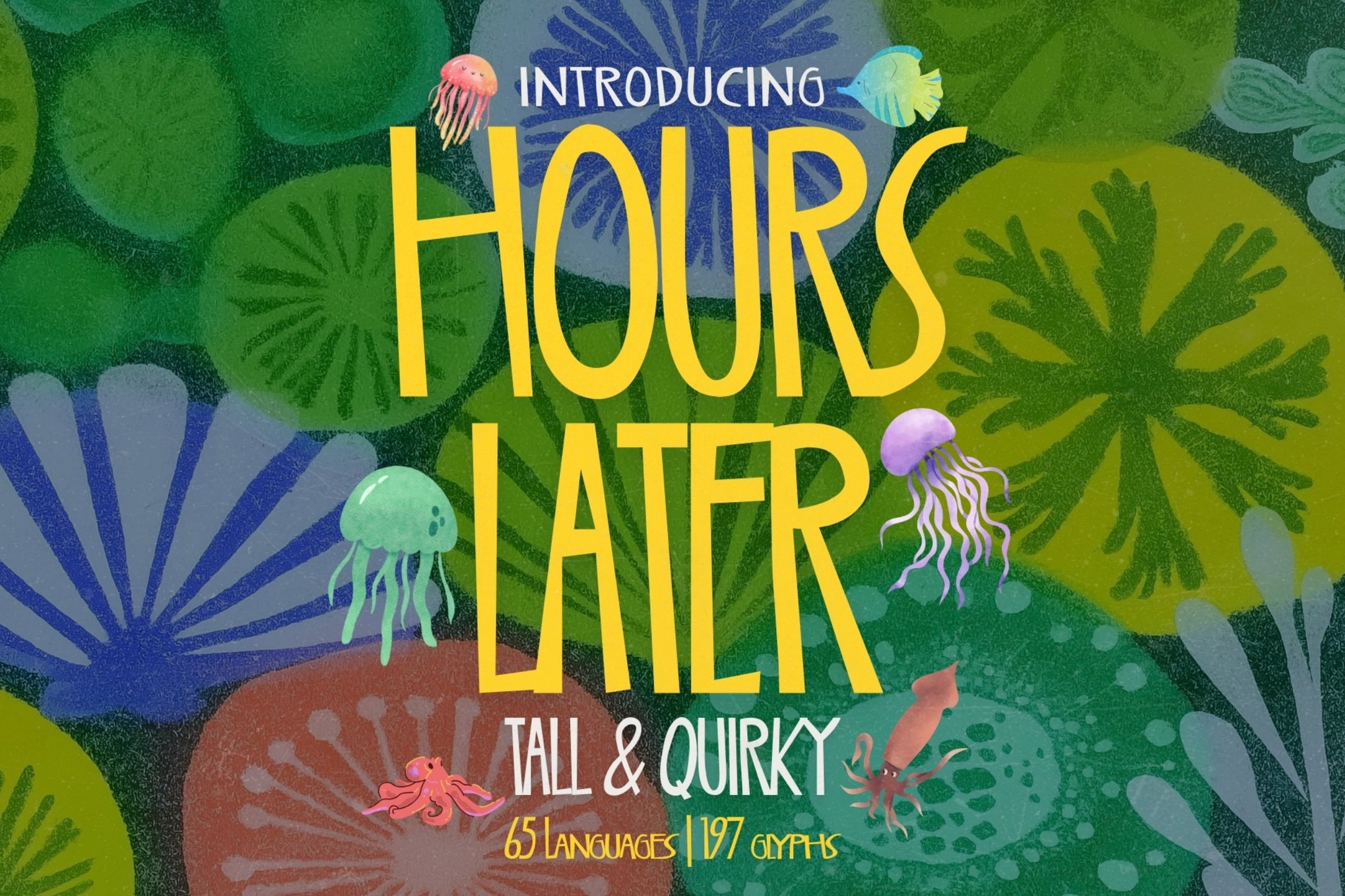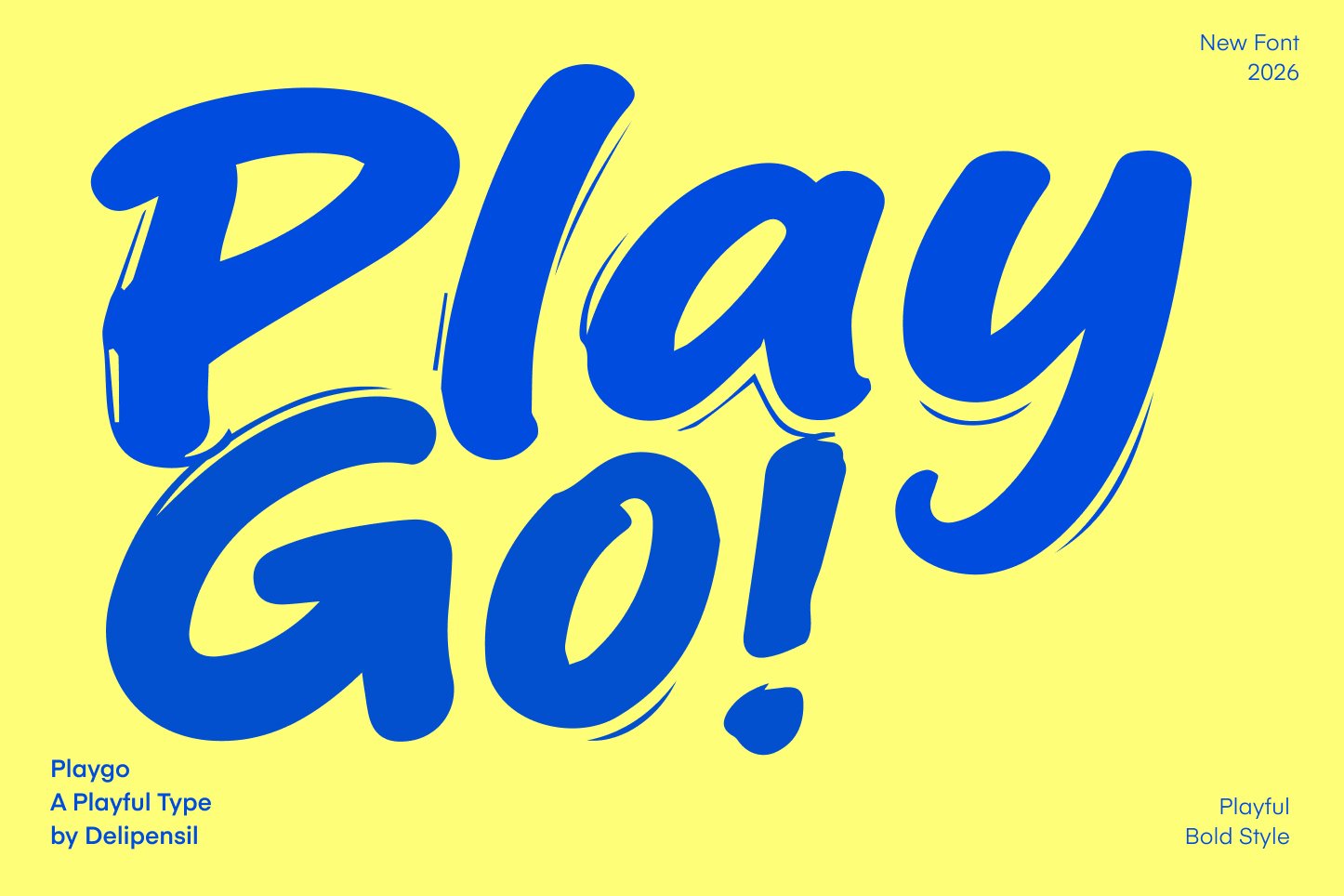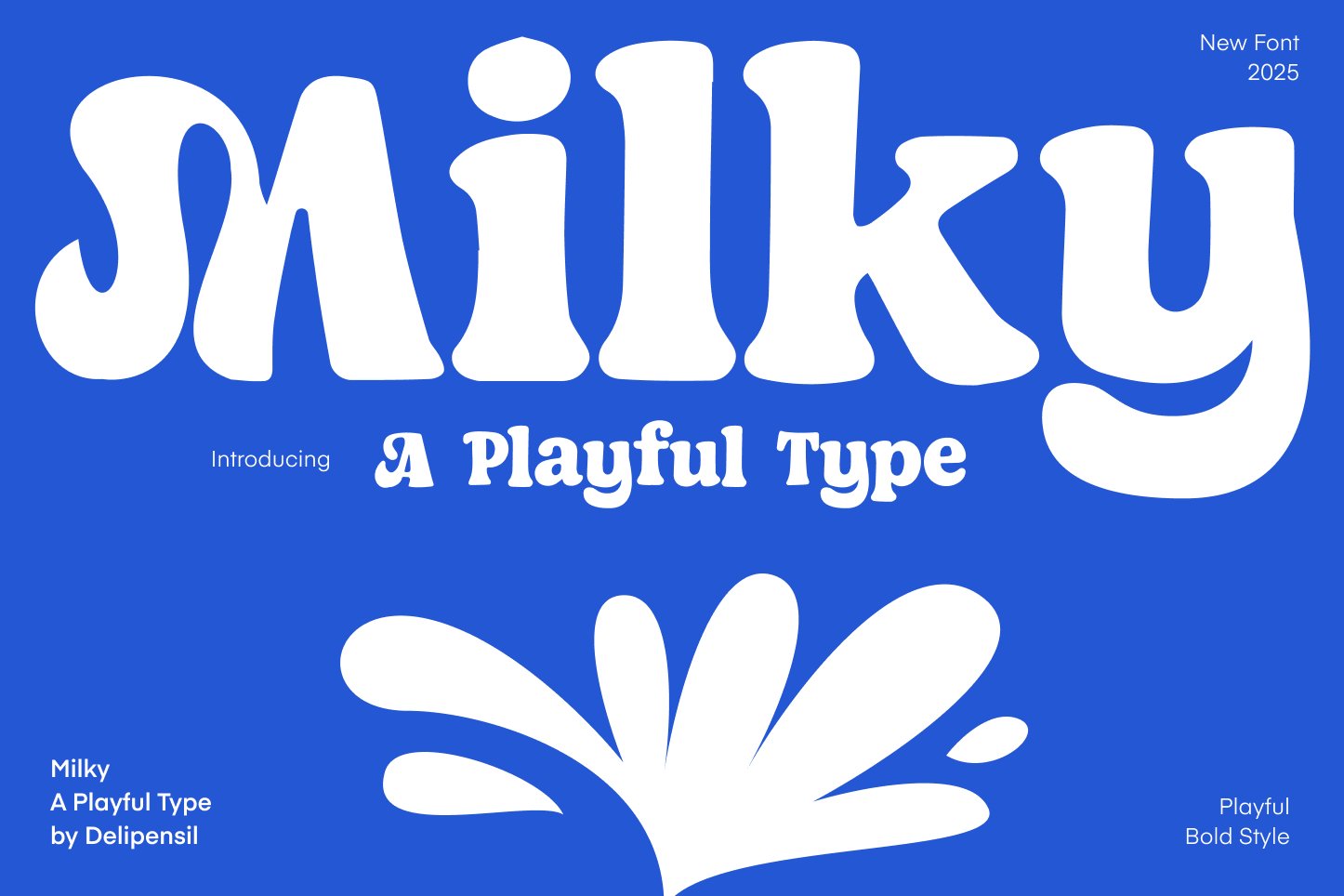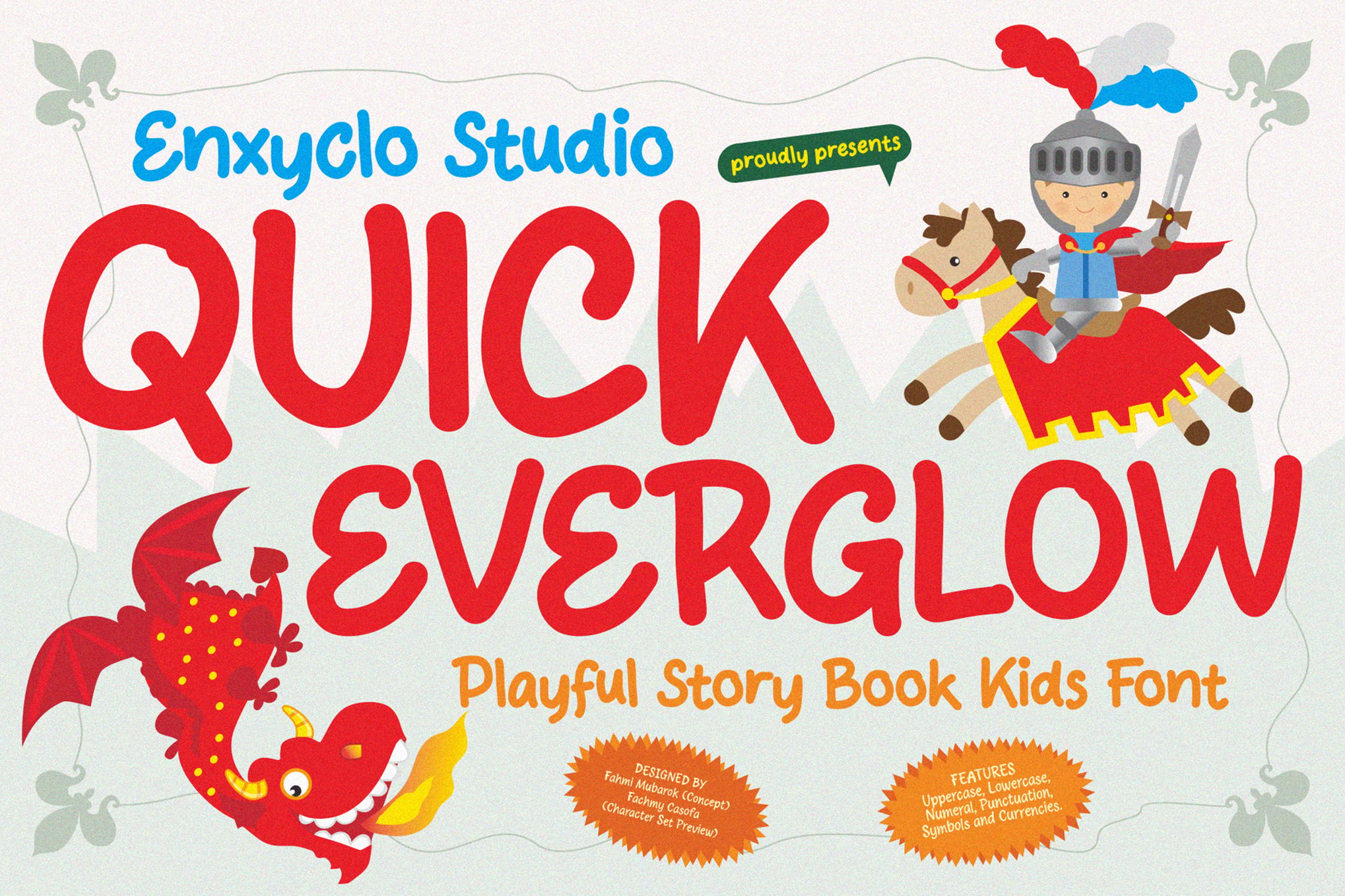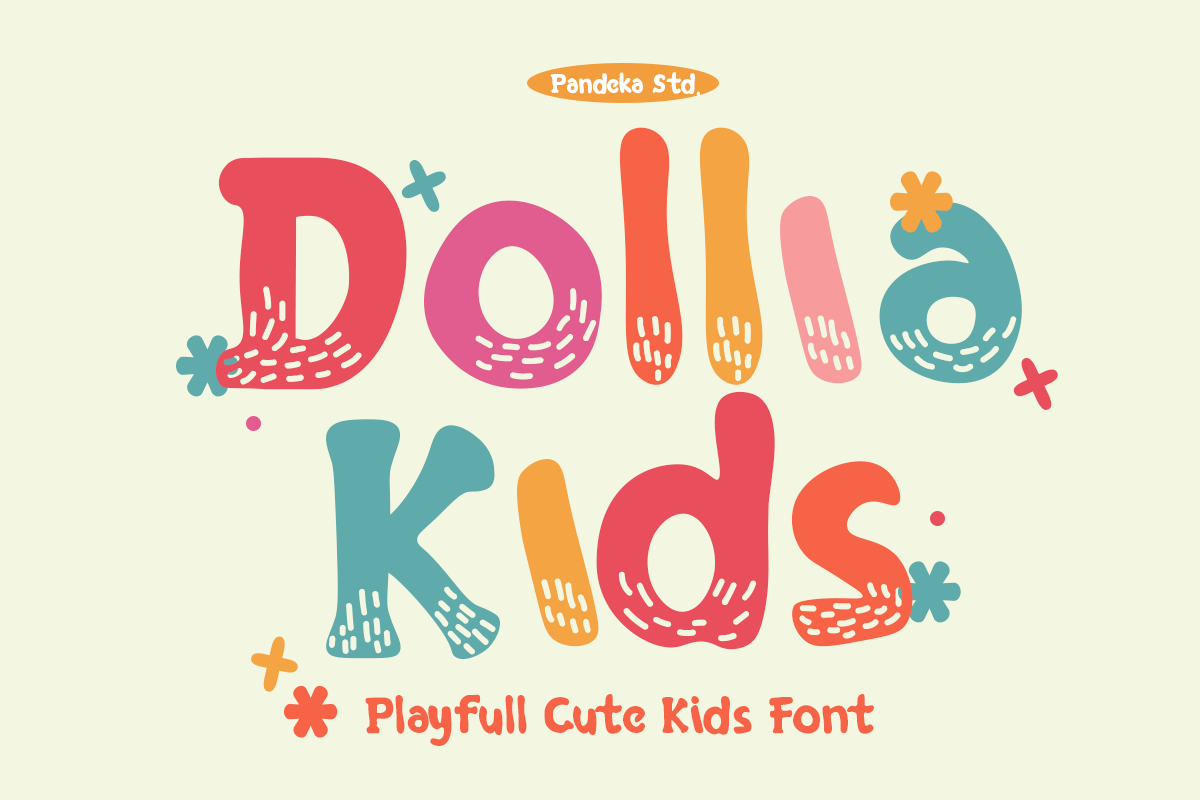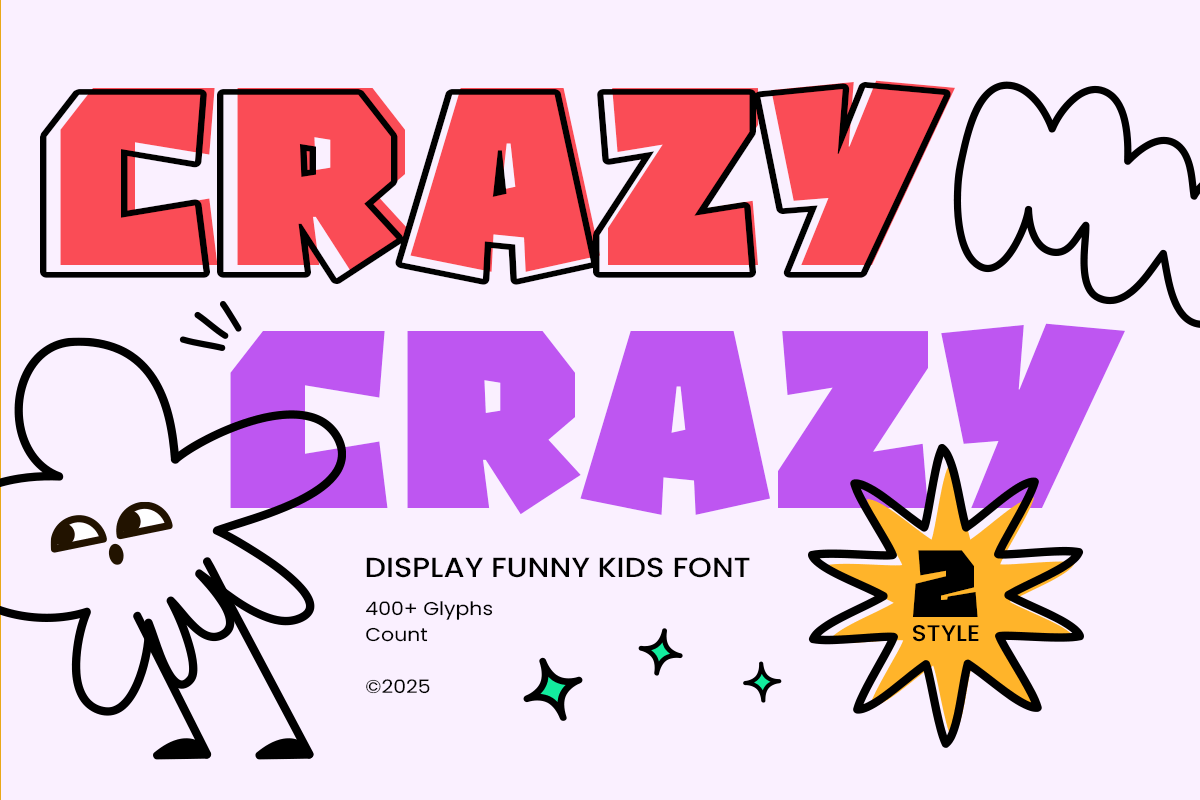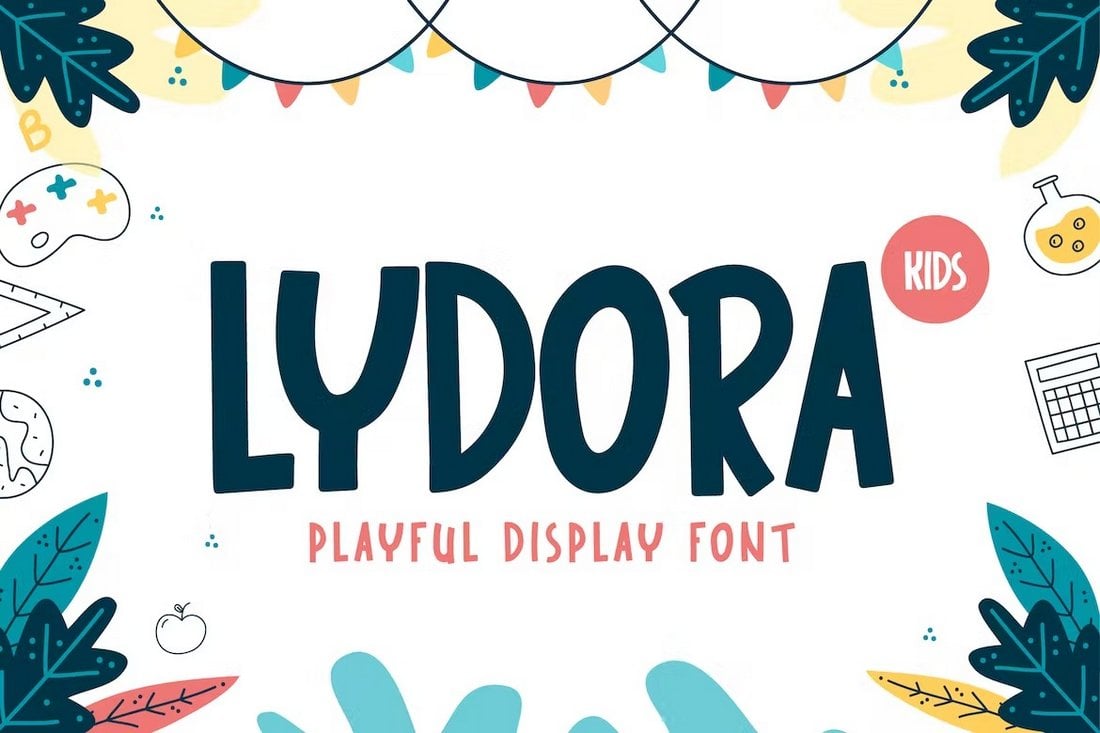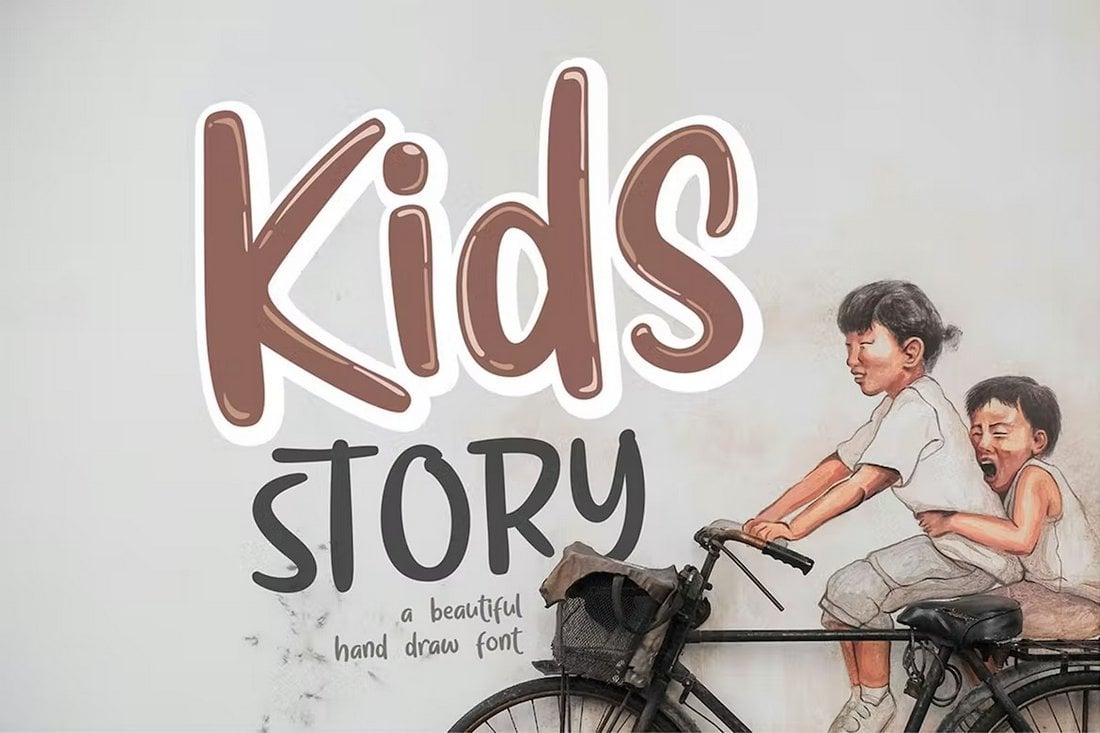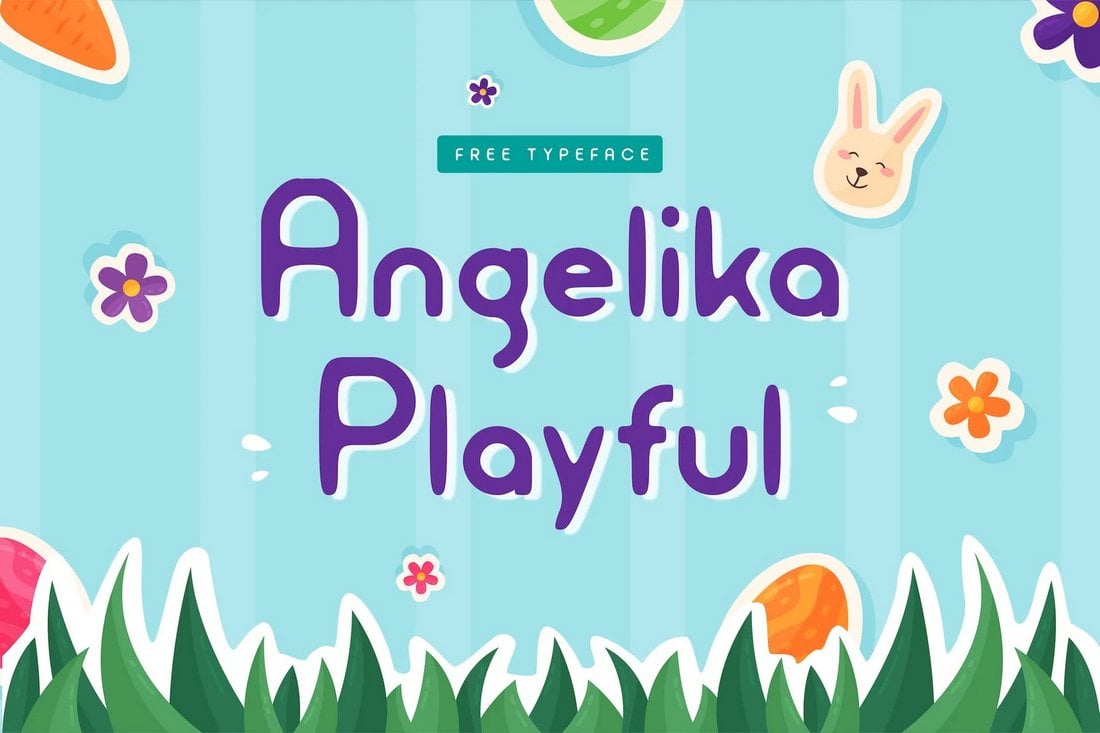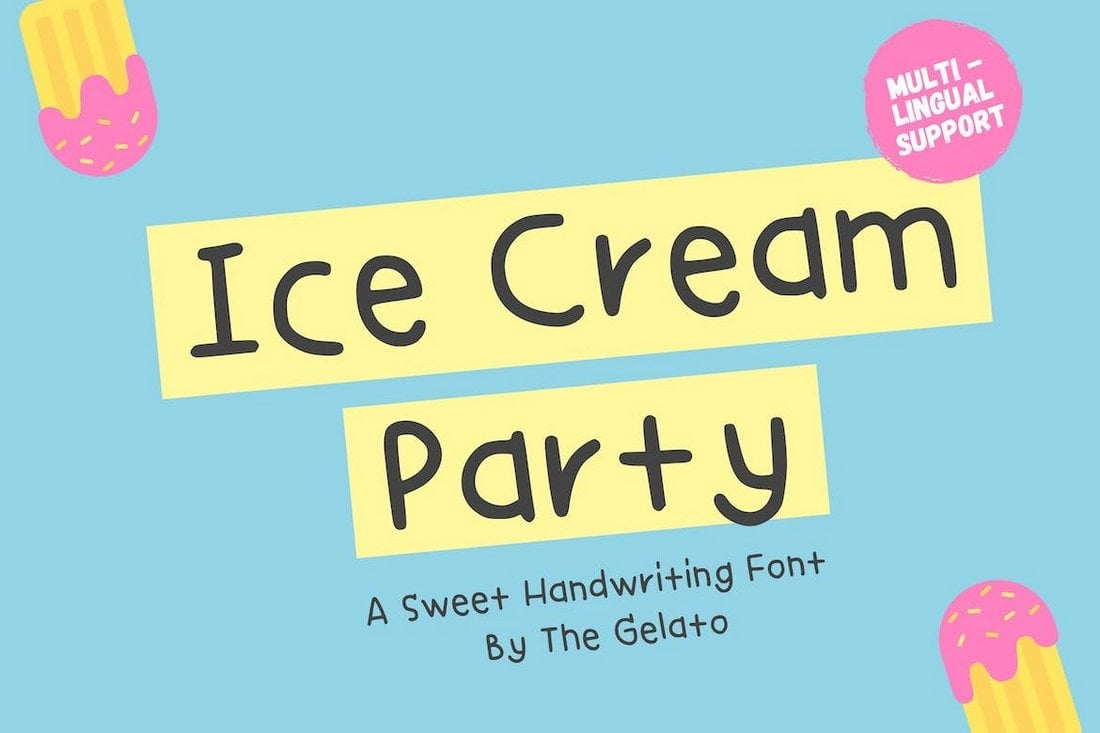
When it comes to designing graphics for kids, typography plays an important role. Kids love reading and spelling out words. But the key to getting their attention is the design of the letters.
If letters look boring, kids will immediately lose focus and attention. As a designer, it’s your job to make those titles and text look as fun as possible for kids.
Today, we have some of the coolest kids fonts you can use to create fun graphic designs for children. You can use these fonts to design bright and attractive book covers, product packaging designs, clothing items, and much more.
Hours Laters – Tall Playful Kids Font
Hours Later is a tall, playful kids’ font designed to infuse your projects with joy and personality. Perfect for birthday invitations, children’s books, and cartoons, it offers a warm, inviting feel. Featuring whimsical letterforms, it remains clear and enticing.
Playgo – Big Bold Kids Font
Playgo is a lively, hand-drawn brush style font perfect for adding a fun and energetic touch to your designs. With thick strokes and dynamic letterforms, it’s great for branding, posters, social media, and kids’ projects, offering strong visual impact while remaining friendly. The package includes uppercase, lowercase, numeric, and punctuation characters.
Milky – Playful Kids Font
Milky is a charming and lively decorative typeface featuring bold, bubbly letters with soft, rounded shapes. Ideal for adding a fun, friendly vibe, it’s perfect for children’s designs, playful branding, and vibrant social media posts. This font package includes OTF, numeric, punctuation, and both uppercase and lowercase letters to enhance your creative projects.
Quick Everglow – Story Book Kids Font
Quick Everglow is a whimsical, handwritten kids’ font that captures the magic of storybook adventures with playful curves and friendly strokes. Perfect for children’s books, fantasy designs, and educational materials, this font adds charm and personality to any project. Available in various formats, it supports multiple languages, making it a versatile choice for creative storytelling.
Dollia Kids – Fun Kids Font
Dollia Kids is a lively, jungle-inspired font perfect for capturing childhood’s playful spirit. Ideal for online games, posters, and social media, it offers three versatile styles: Regular, Spot, and Inline. With support for multiple languages and easy installation on PC and Mac, this font is accessible in popular design software, bringing joy to any project.
Crazy – Funny Kids Font
Crazy is a lively and playful font perfect for adding joy and energy to any kids-themed project. With its quirky shapes and rounded strokes, it’s ideal for children’s books, cartoon titles, and birthday invitations. Available in Regular and Bold, this font supports multiple languages and is easy to read, making it a fun choice for creative designs.
Dinofont – Handwritten Kids Font
This is a hand-crafted kids font that features a creative design inspired by dinosaurs, animals, and fun handwritten designs. It’s the perfect all-in-one font you can use to craft all kinds of things related to children’s books, clothing, mugs, school posters, and so much more. Websites like Reading Chest use this type of kids font, and it comes with a set of dingbats as a bonus too.
Lydora – Playful Kids Font
If you’re looking for a playful font that’s suitable for education-themed designs, this kids font is perfect for your project. It has a fun and simple look that will fit well with designs related to school, book covers, and other educational designs. The font includes all-caps letters with a set of alternate characters.
KIDS STORY – Childrens Book font
A font with a beautiful hand-crafted letter design that’s most suitable for children’s story books and book cover designs. This font has a creative hand-drawn design with each character telling a unique story. It includes both uppercase and lowercase letters. As well as ligatures and glyphs.
Bubba – Handwritten Kids font
This is a fun cartoon-themed kids font that has creative letters that are perfect for designing titles for everything from school banners to video titles, kids’ games, social media posts, and more. The font includes uppercase and lowercase characters.
BoldenVan – Fun Children’s Fonts
Want to design big titles that grab attention from far away? Then be sure to use this font in your designs. It has big chunky letters that are made just for designing titles for posters and banners. Of course, you can use it to craft book covers, T-shirts, social media posts, and other types of designs too.
Angelika Playful – Free Kids Font
This is a free kids font you can use to craft adorable titles for many different types of designs. It features a unique style of letters with a fun look and feel. It’s free to use with personal and commercial projects.
Blobby Chug – Kids Blob Font
This font lives up to its name by giving you a set of letters that look like blobs. It’s a fun-looking font to use in all kinds of kids designs. The font comes in two styles featuring filled and outlines letters.